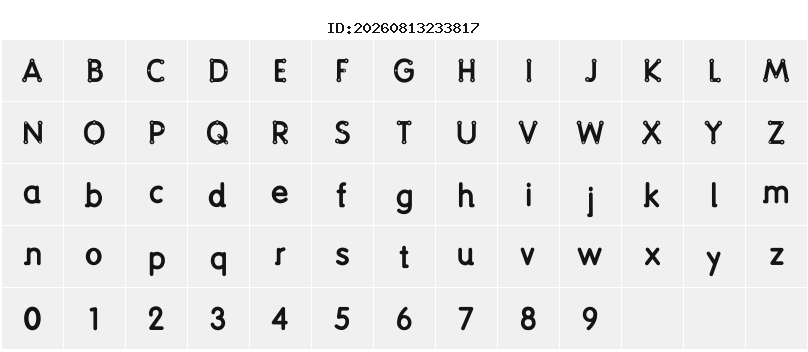
• Font Name: screwround
• Full Font Name: screwround
• PostScript Name: screwround
About screwround.ttf
screwround.ttf is a modern, elegant sans-serif font designed for ultimate readability and visual harmony. Perfect for branding, headlines, web design, and print materials.